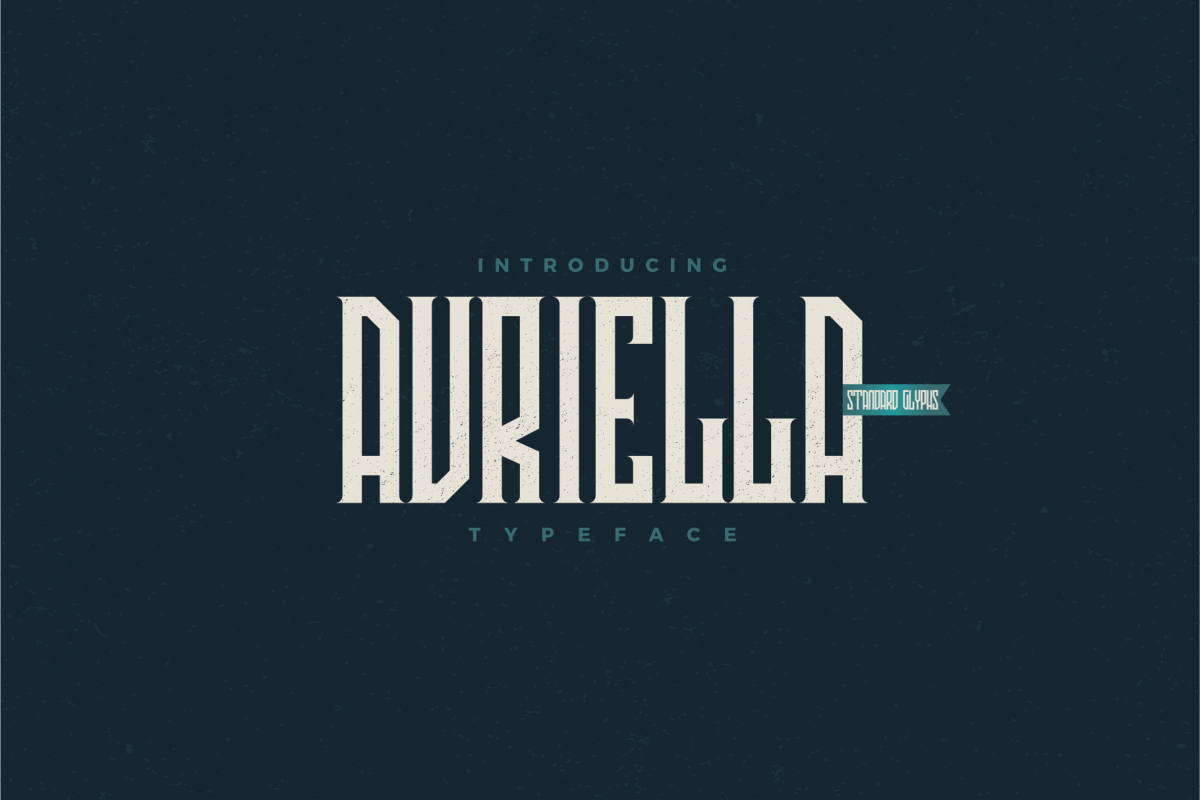
Avriella Display Font
AVRIELLA is display font typeface very suitable for any design needs : branding, logos, quotes, product packaging, merchandise, poster, modern advertising design, Art Quote, Home decor, Book/Cover Title, Invitation, special events, custom mug, pillow, t-shirts, etc.